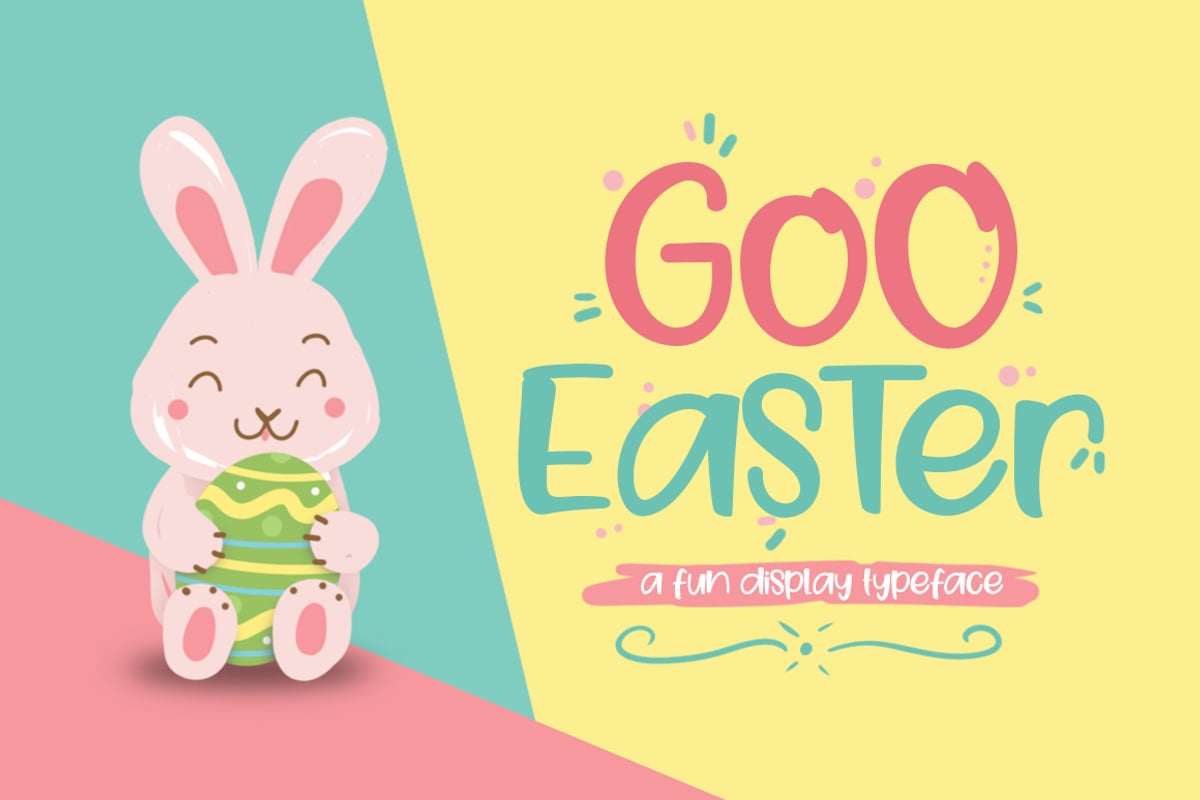
Goo Easter Font
Bring cheerful Easter vibes to your designs with this modern display font perfect for seasonal projects. Goo Easter is a delightfully playful display typeface that captures the fun, festive spirit of spring celebrations. This modern font is ideal for creating eye-catching logos, memorable branding, heartwarming greeting cards, vibrant posters, and any design project that needs a touch of seasonal joy. Features: OpenType Features Uppercase & Lowercase characters Numerals & Punctuation Mul...